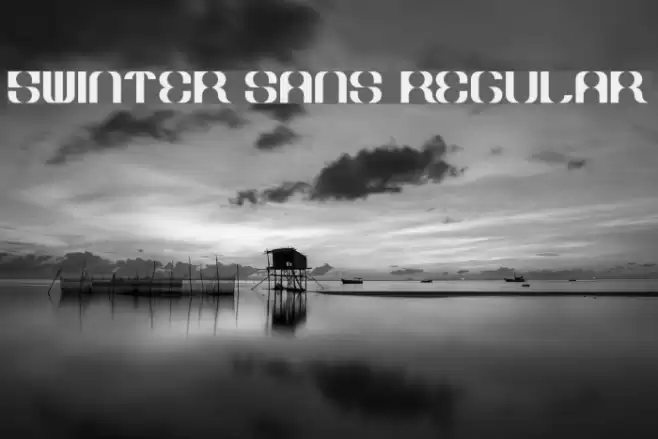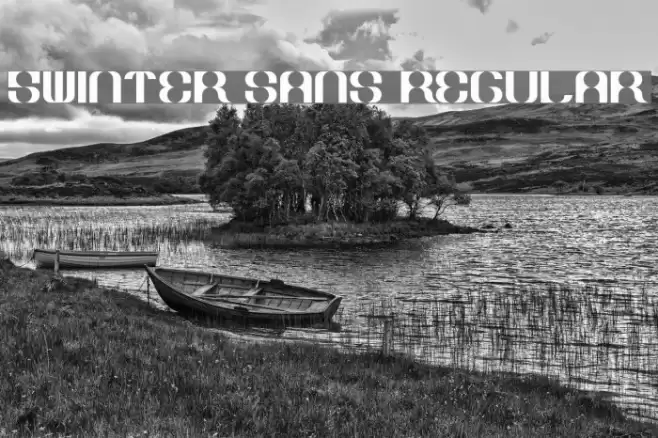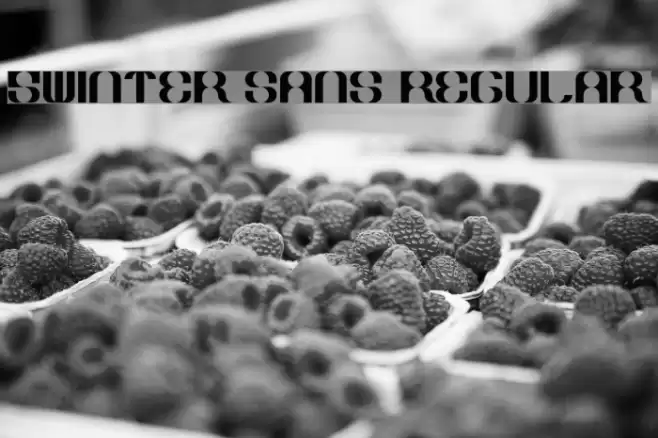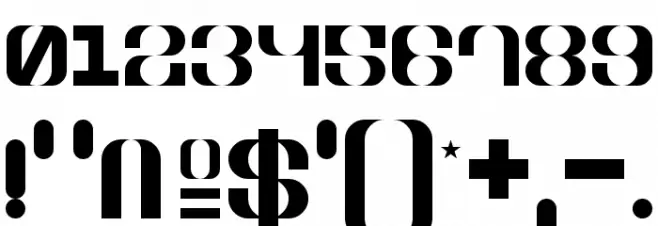
5Winter Sans Regular Font
5Winter Sans Regular Description
This font features a bold, geometric design with a modern and futuristic aesthetic. The characters are constructed with thick, uniform strokes that create a strong visual impact. The design incorporates unique cutouts and angles, giving it a distinctive and edgy look. The uppercase letters are particularly striking, with a blocky and robust appearance, while the lowercase letters maintain the same boldness with slightly more rounded forms. The numerals and special characters follow the same design principles, ensuring consistency across all glyphs. This font is ideal for projects that require a bold statement and a contemporary feel.
A bold, geometric font with a modern and futuristic style from Uncategorized fonts.